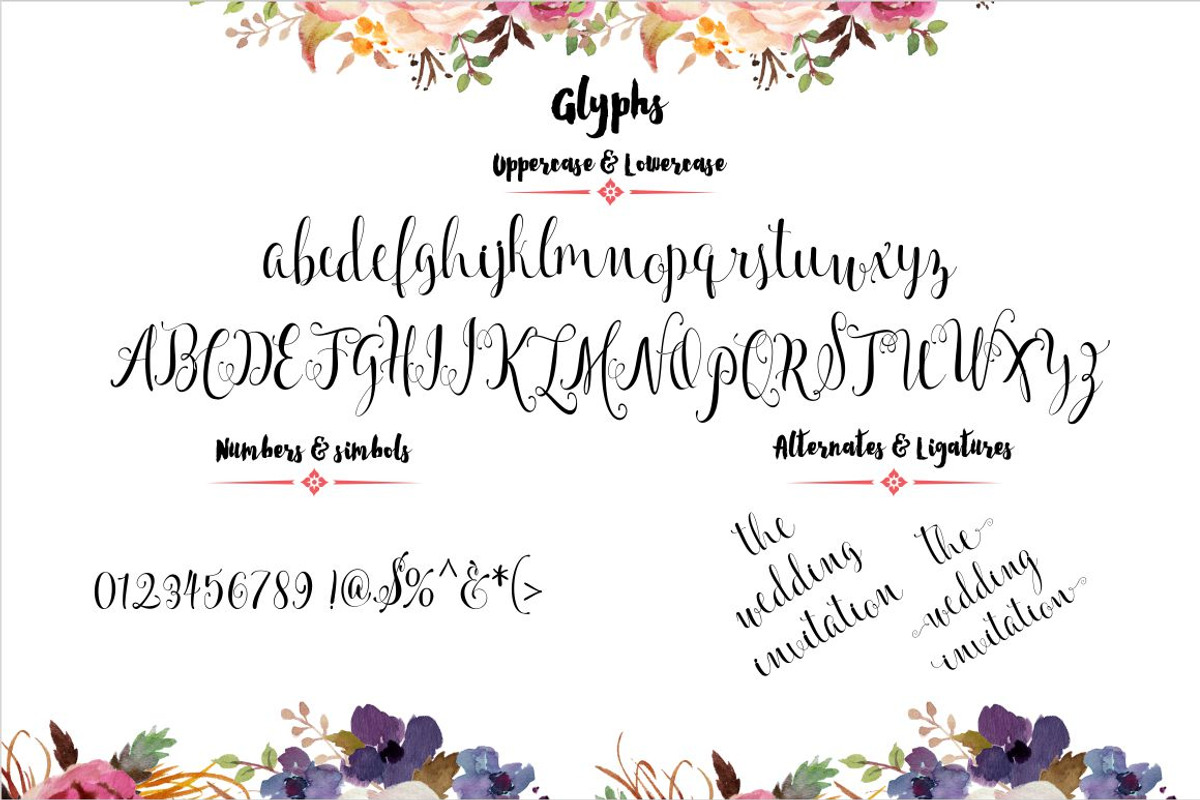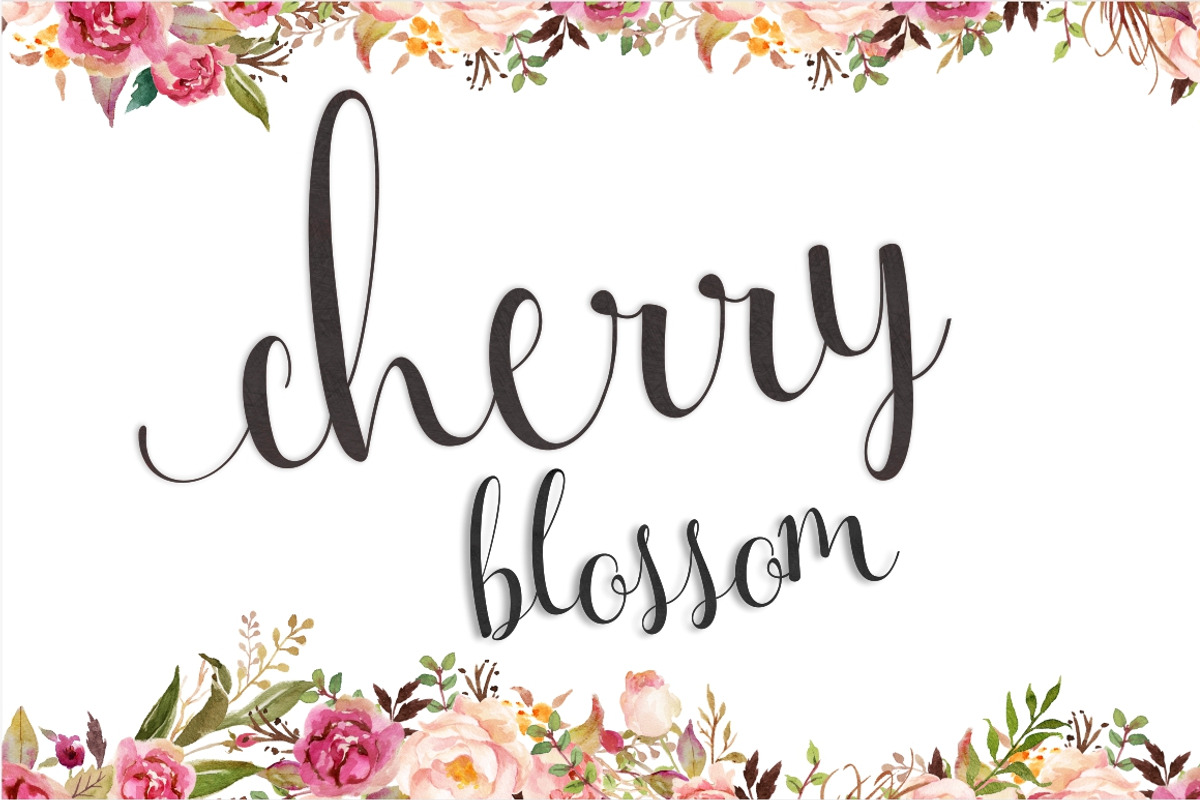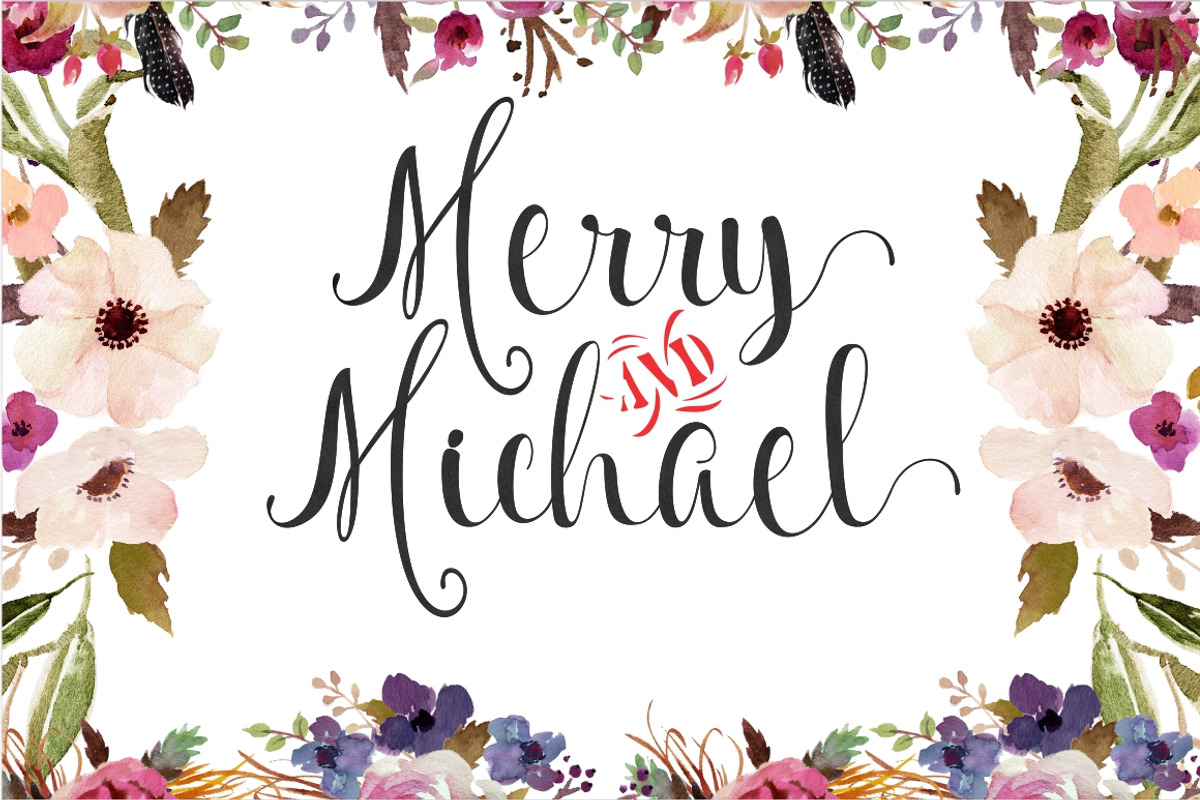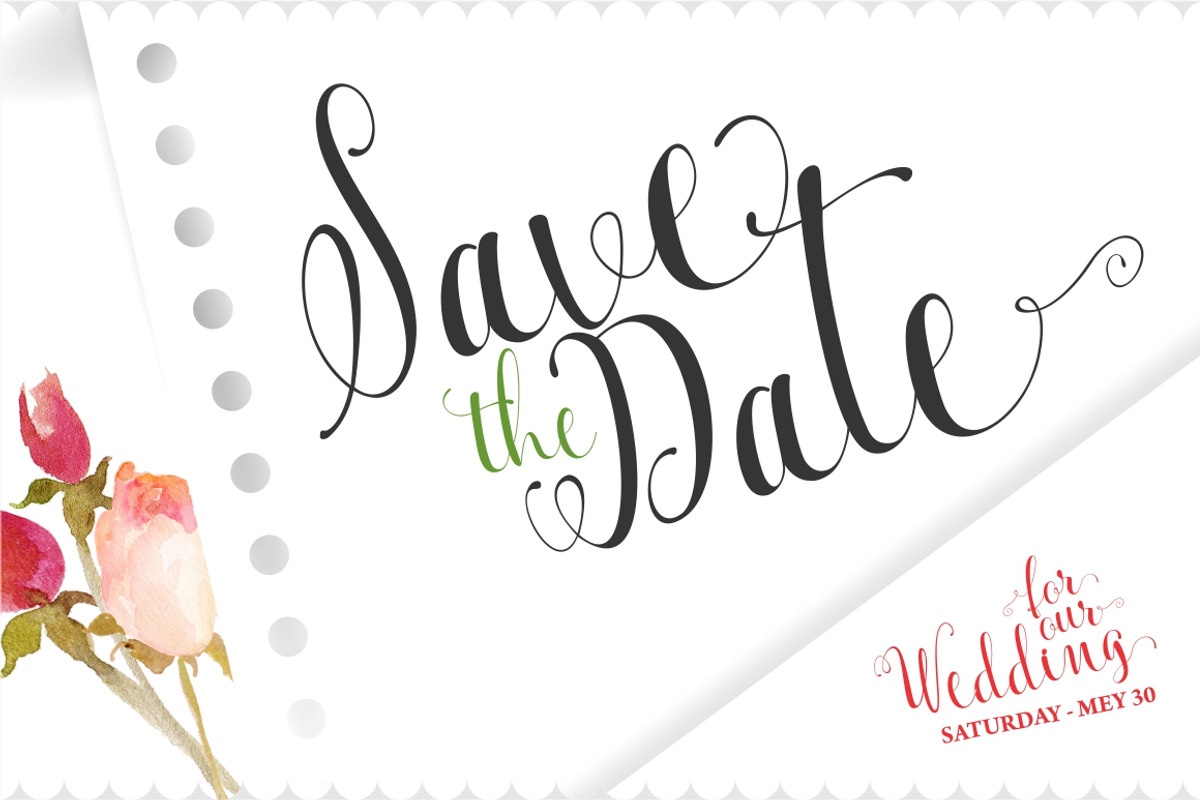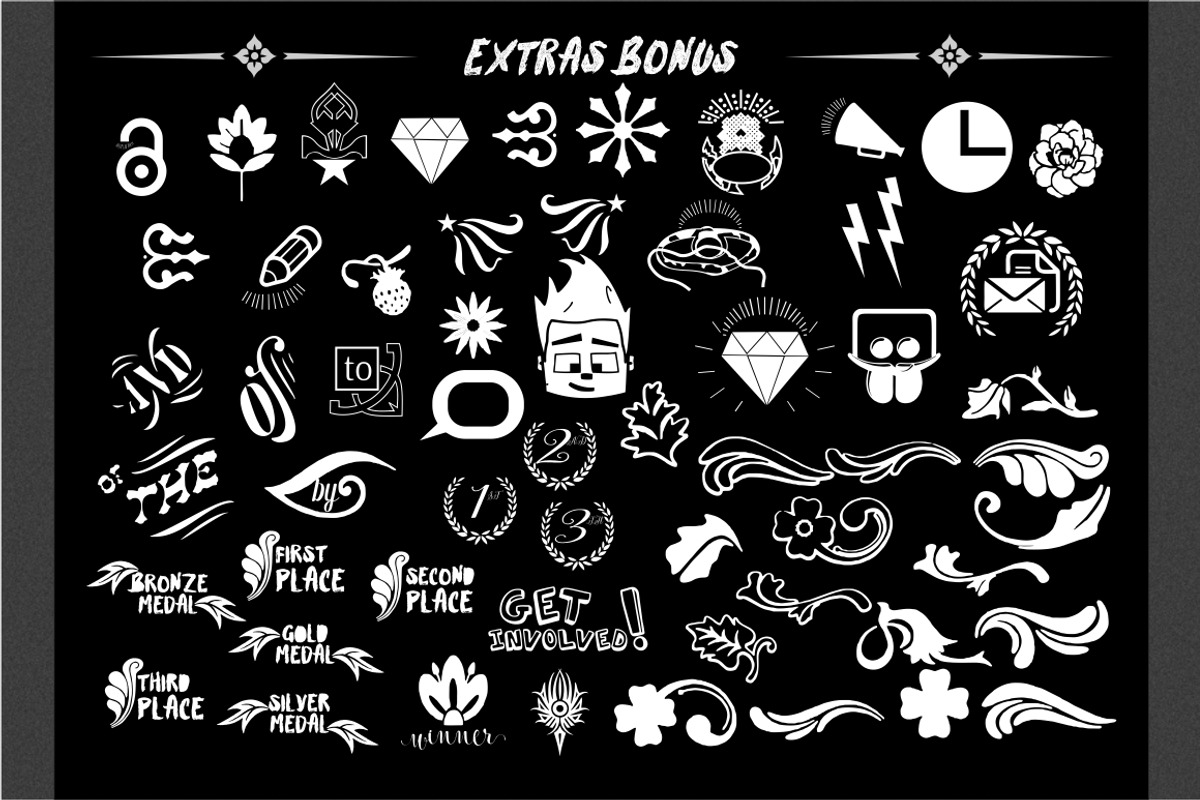
Cherry Blossom
Introducing ... Cherry Blooson is handwritten fonts with a unique character. Full featured open - type, either used in open type software conscious. Most diacritical including fonts and can be used with all major languages in Europe ...
354 glyphs are included, with swashes letters and 160 alternate characters, and the added bonus extras ornament icon uppercase and lowercase ... suitable for any design requirements, modern design, brand, stationery design, blog design, the design of modern advertising, invitations, weddings, special events, each letter needs and more.